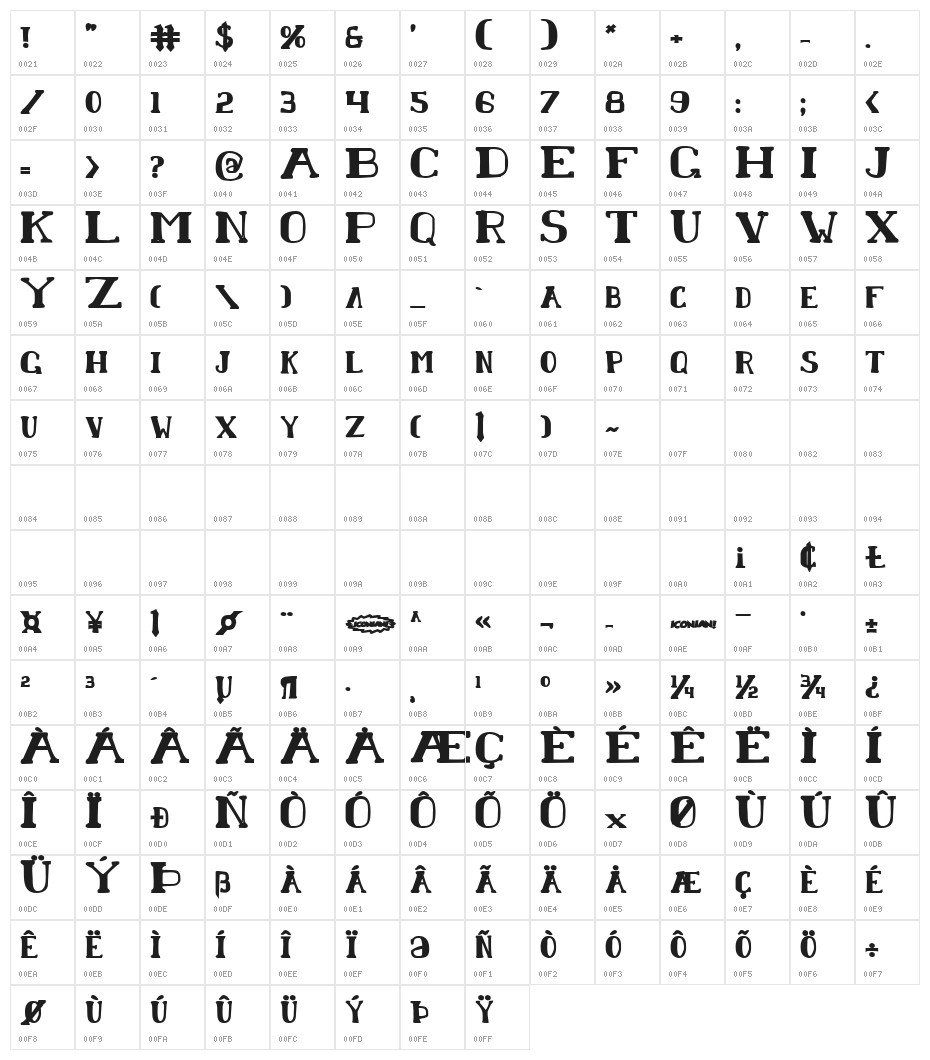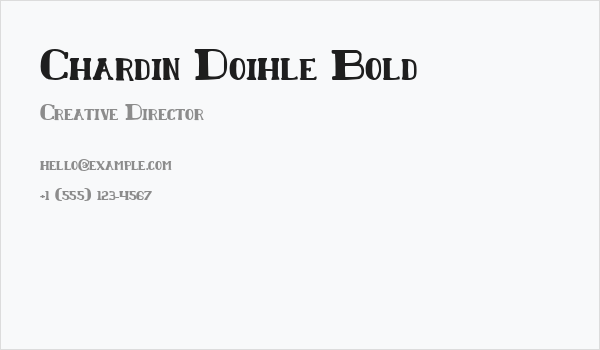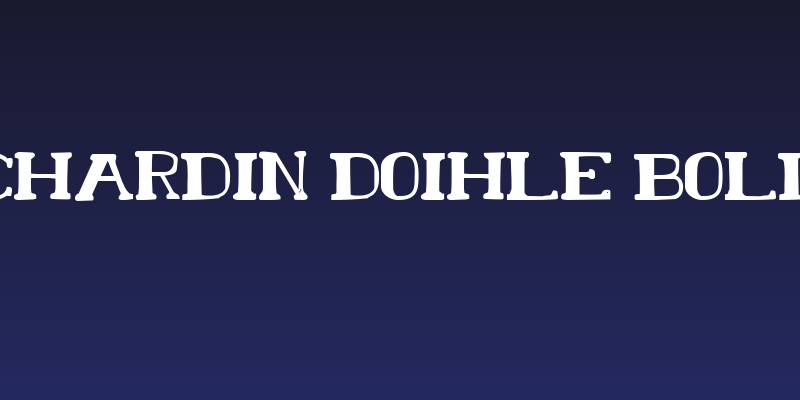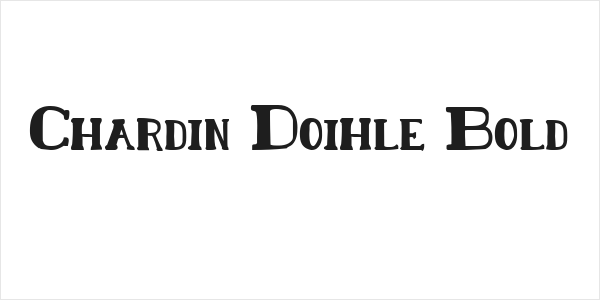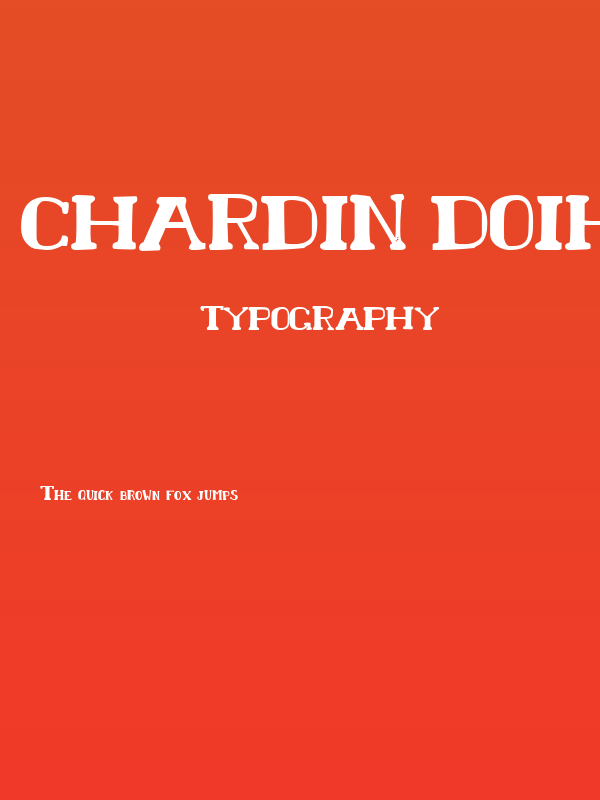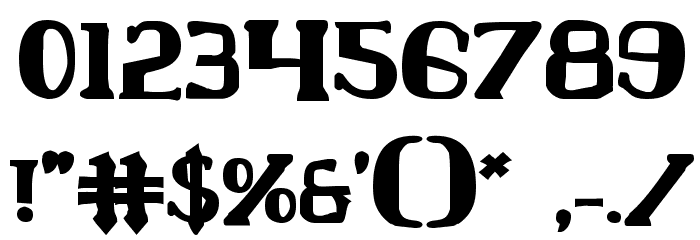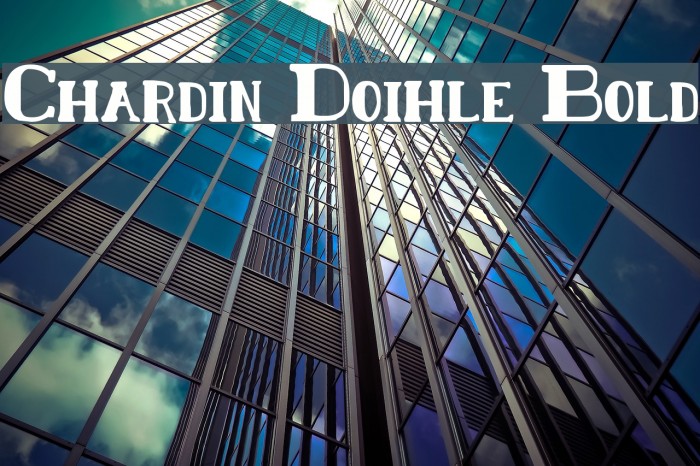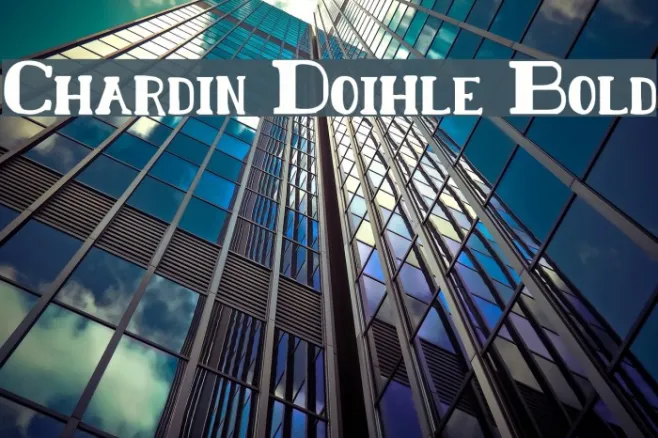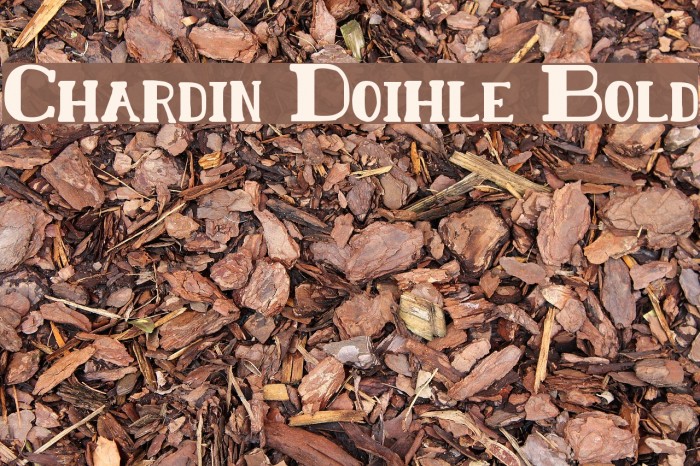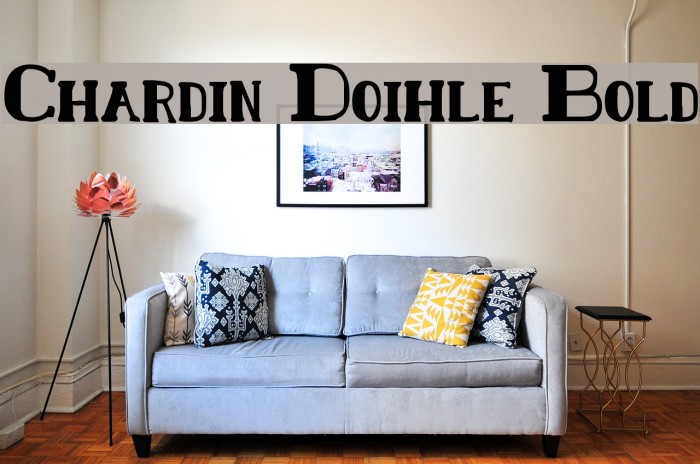
Chardin Doihle Bold Font
Chardin Doihle Bold Description
This font features a bold and robust design with a distinct slab serif style. The characters exhibit a strong presence with thick strokes and pronounced serifs, giving it a commanding and authoritative look. The uppercase letters are particularly striking, with a uniformity that enhances readability. The numbers and special characters maintain the same boldness, ensuring consistency across all elements. The font's design is reminiscent of vintage typefaces, yet it carries a modern twist that makes it versatile for various applications. Its high contrast between thick and thin strokes adds to its visual appeal, making it suitable for attention-grabbing headlines and impactful designs.
| Overall Style | Vintage, Modern |
| Proposed Projects | Ideal for branding, posters, headlines, and any design requiring a strong visual impact. |